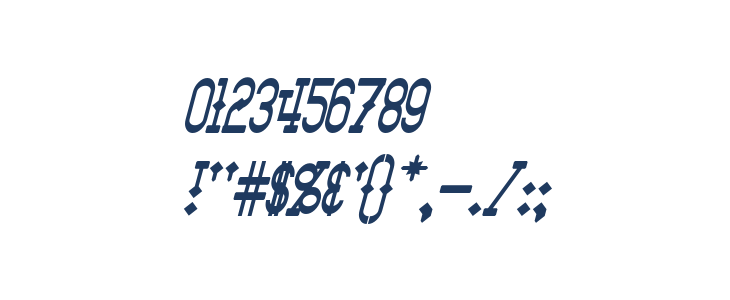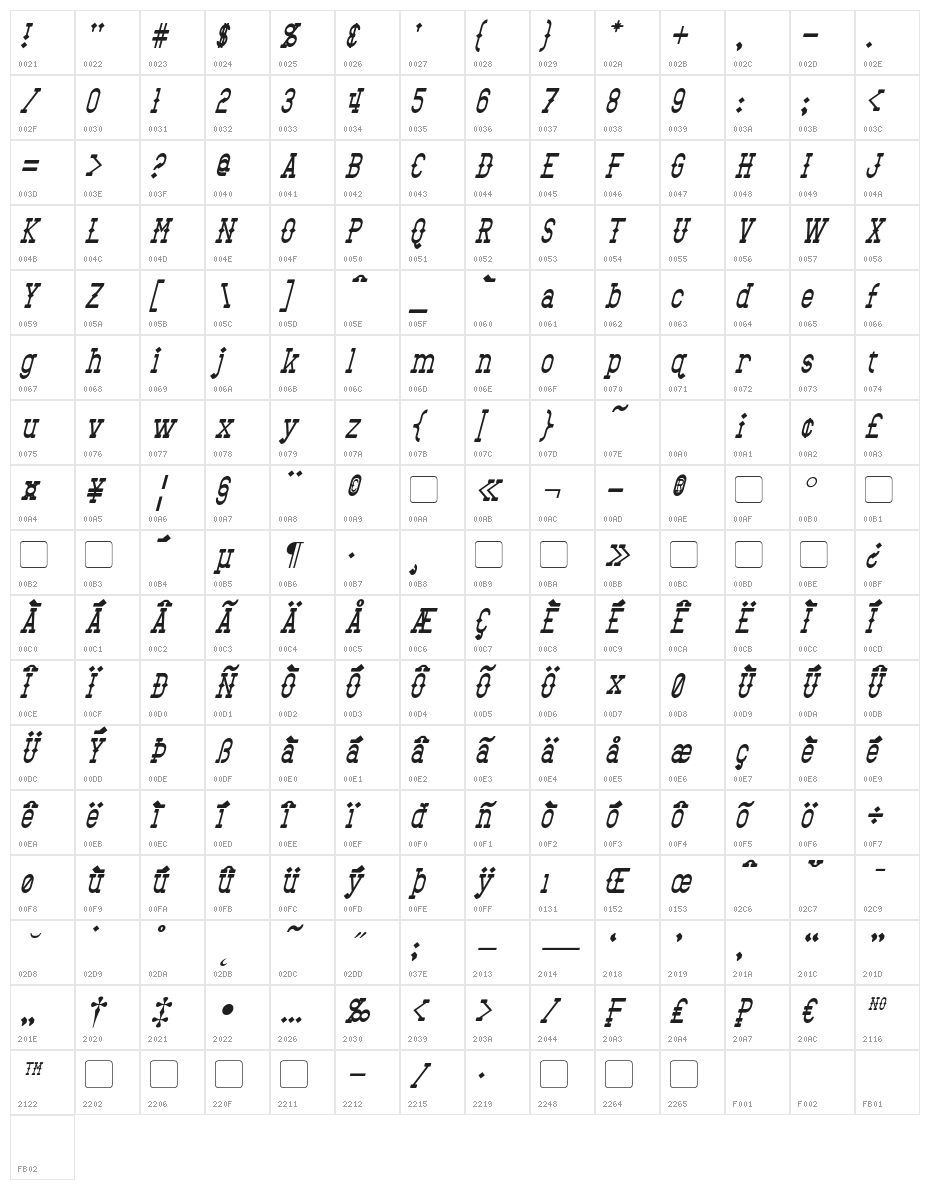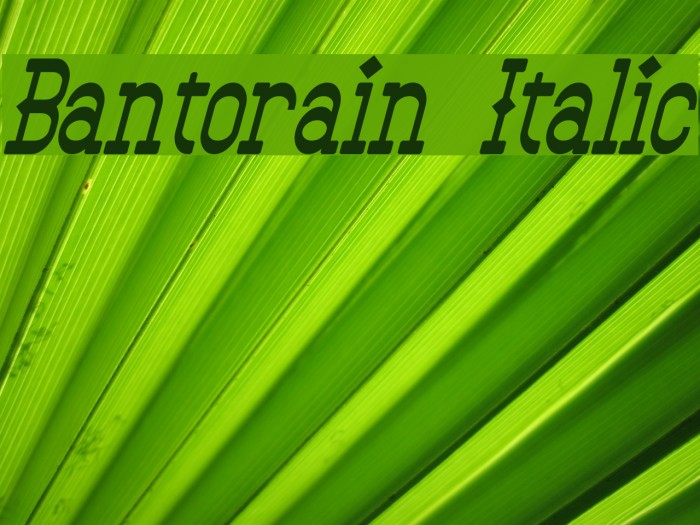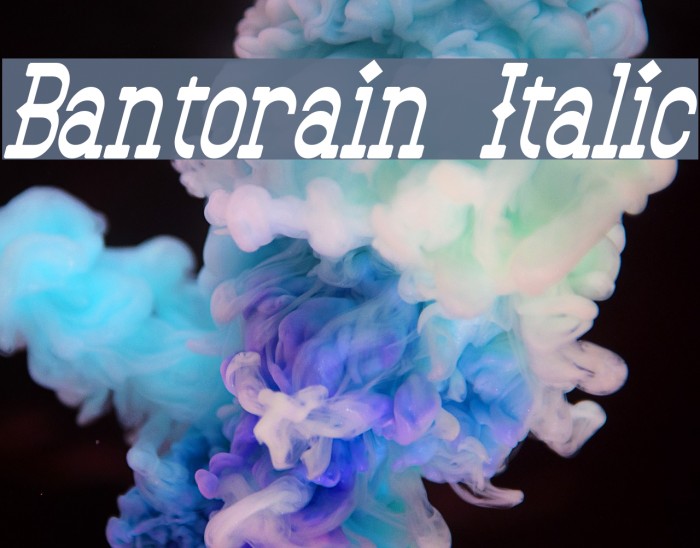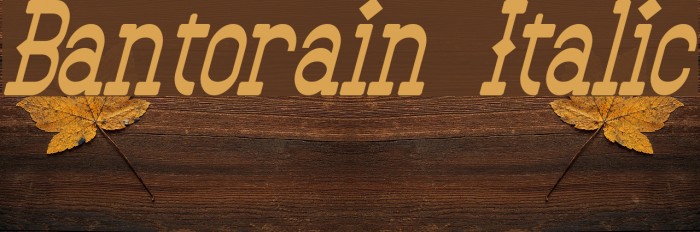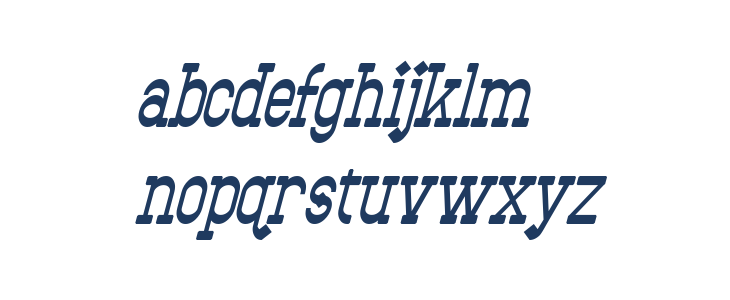
Bantorain Italic Font
Bantorain Italic Description
This font features a bold, italic style with a strong slant, giving it a dynamic and energetic appearance. The characters are well-defined with a consistent stroke width, creating a uniform look across both uppercase and lowercase letters. The numbers and special characters maintain the same boldness and slant, ensuring cohesion throughout the font. The overall design is modern and impactful, suitable for making statements in various design contexts.